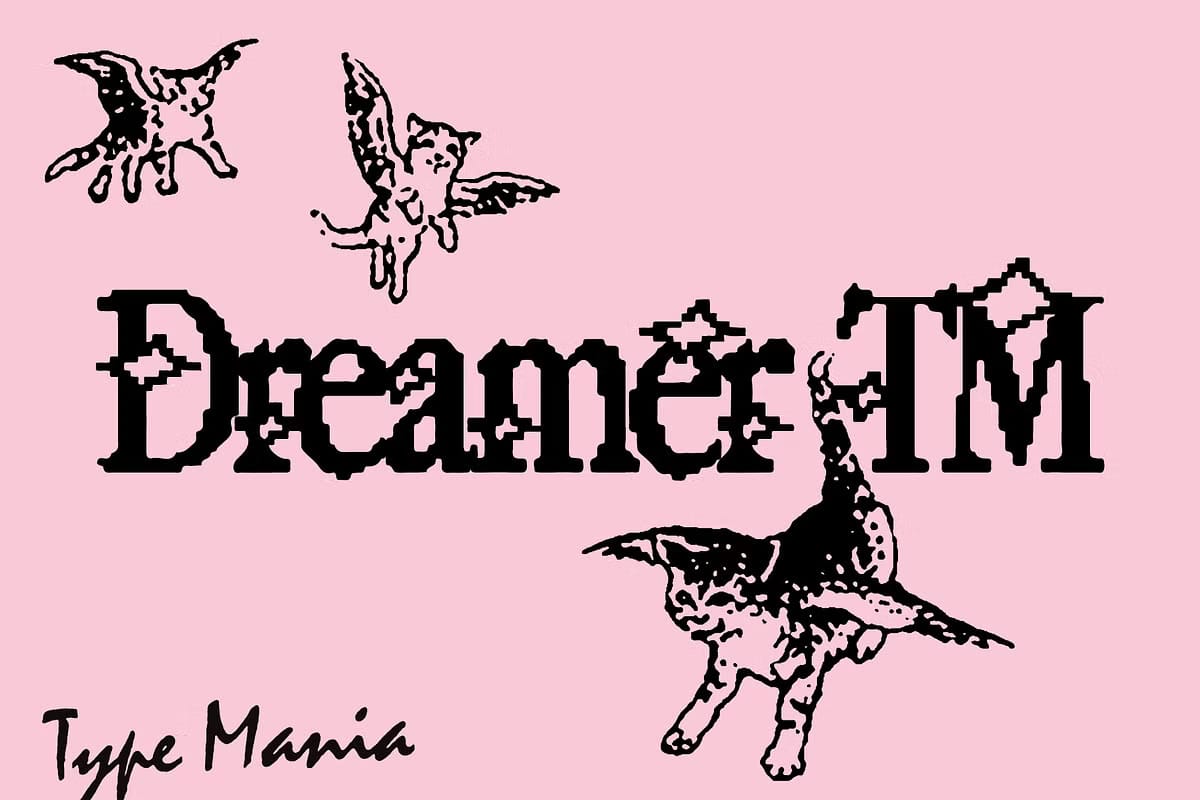
Dreamer TM Font
Dreamer TM Font: The Ultimate Y2K Retro Pixel Font
In the ever-evolving world of digital design, typography plays a crucial role in setting the tone of a project. If you’re searching for a font that embodies nostalgia while maintaining a modern edge, Dreamer TM Font is a must-have. This emotive serif font captures the essence of Y2K fonts, making it perfect for designers who want to infuse their work with retro aesthetics.
Dreamer TM – Y2K Aesthetics Font
Dreamer TM Font
What Makes Dreamer TM Font Unique?
Dreamer TM is a uniquely designed typeface that blends vintage charm with contemporary flair. Inspired by early 2000s design trends, it incorporates a pixel font influence, making it an excellent choice for digital and print projects. Whether you’re working on a retro font-inspired poster, a branding project, or a website, Dreamer TM adds a distinctive character to any creative endeavor.
Features of Dreamer TM Font
o fully appreciate the versatility of Dreamer TM, let’s explore its key features:
1. OpenType Features
Dreamer TM Font comes packed with essential OpenType features that elevate its usability and uniqueness. These features include:
• Two stylistic sets: The font is designed to shift between different stylistic sets automatically, ensuring a dynamic and engaging visual flow when the same glyphs are typed consecutively.
• Automatic alternation: No need to manually tweak the typography; Dreamer TM adjusts itself for a seamless look.
2. Multi-Language Support
Dreamer TM is not just visually appealing—it is also highly functional, offering broad language support. The font includes:
This makes it an excellent choice for global branding, as it supports a wide range of characters and accents.
Why Choose Dreamer TM Font?
Dreamer TM Font
With the rise of Y2K fonts, Dreamer TM is an exceptional addition to any designer’s toolkit. Here’s why it stands out:
1. Perfect for Y2K and Retro Aesthetics
The Dreamer TM font embodies early 2000s nostalgia, making it ideal for brands, advertisements, and projects looking to capture the bold, playful energy of that era. If you love retro fonts, this typeface is an excellent choice.
2. Great for Branding & Logos
Fonts play a key role in brand identity. Dreamer TM’s edgy yet stylish design makes it a fantastic option for logos, merchandise, and promotional materials.download, allowing designers to experiment with it without any investment.
How to Use Dreamer TM Font in Your Designs
Dreamer TM Font
Dreamer TM is a versatile typeface that works well across multiple applications, including:
• Posters & Flyers: Add a striking touch to promotional materials with its bold, nostalgic design.
• Social Media Graphics: Stand out on platforms like Instagram and Pinterest with eye-catching typography.
• Website & UI Design: Incorporate Dreamer TM into website headers and digital projects to create a visually appealing experience.
• T-shirts & Merchandise: Print-on-demand businesses can use this font for trendy Y2K-inspired apparel.
Final Thoughts
Dreamer TM is more than just another pixel font—it’s a stylish, nostalgic, and highly functional typeface that embodies the Y2K fonts aesthetic. With its OpenType features, broad language support, and automatic stylistic alternation, this retro font is a fantastic addition to any creative project. Best of all, it’s free to download, making it an accessible option for designers of all skill levels.